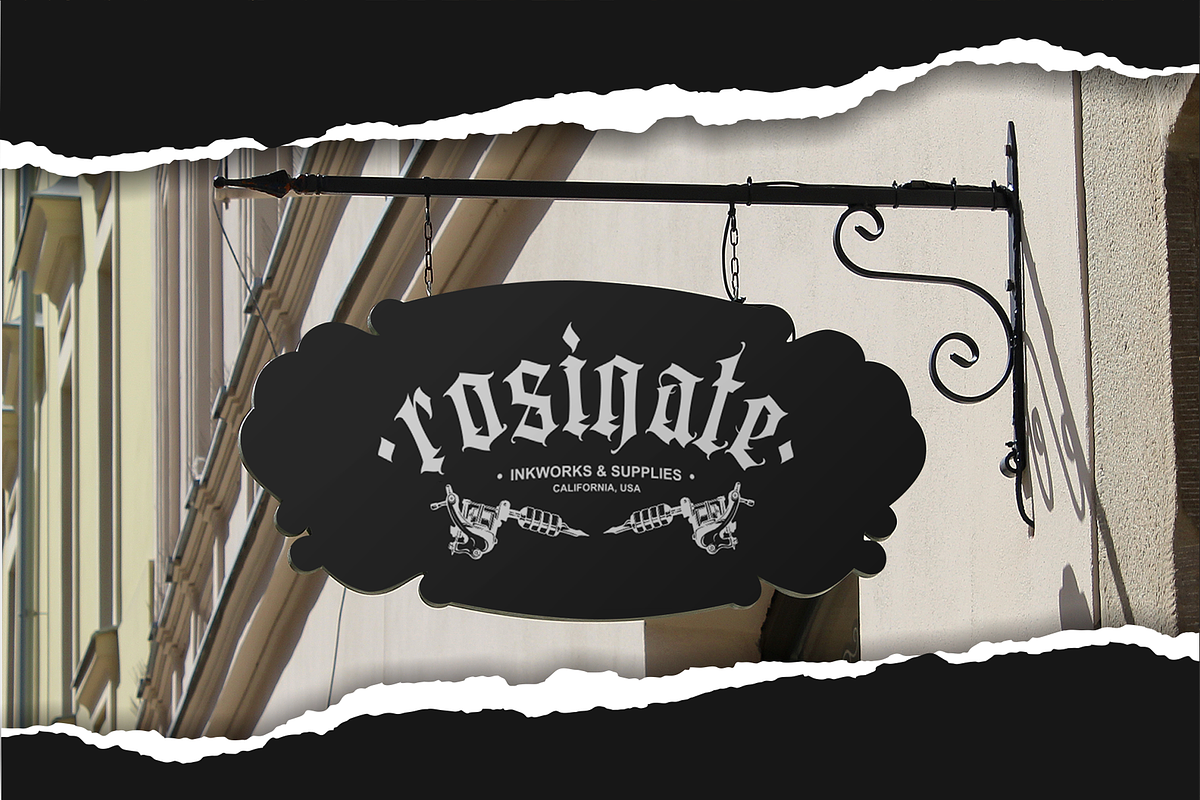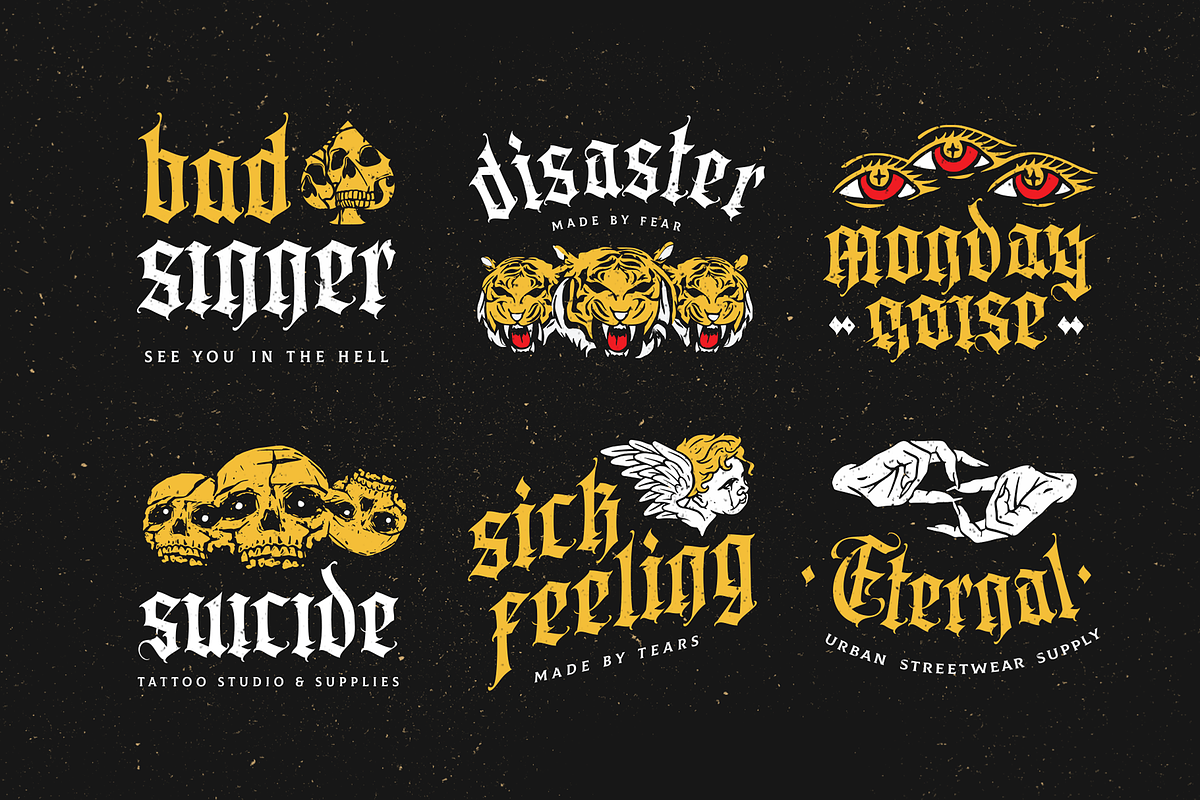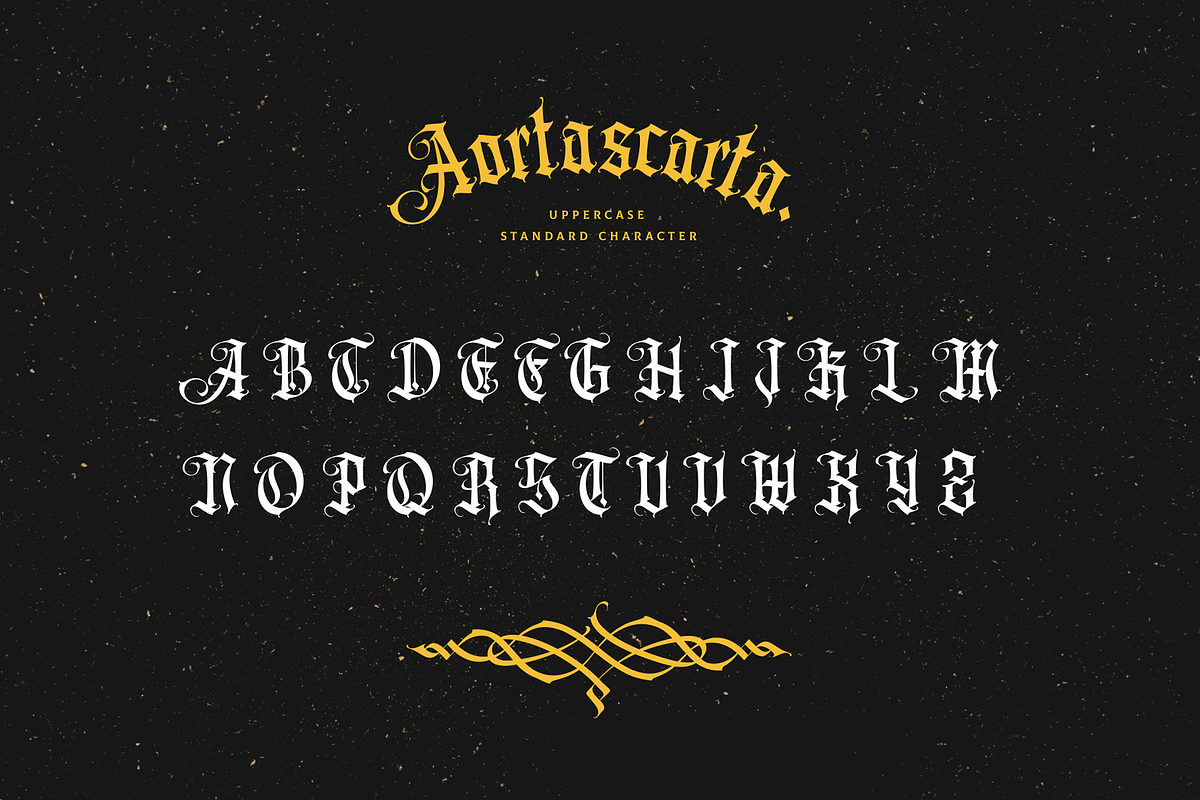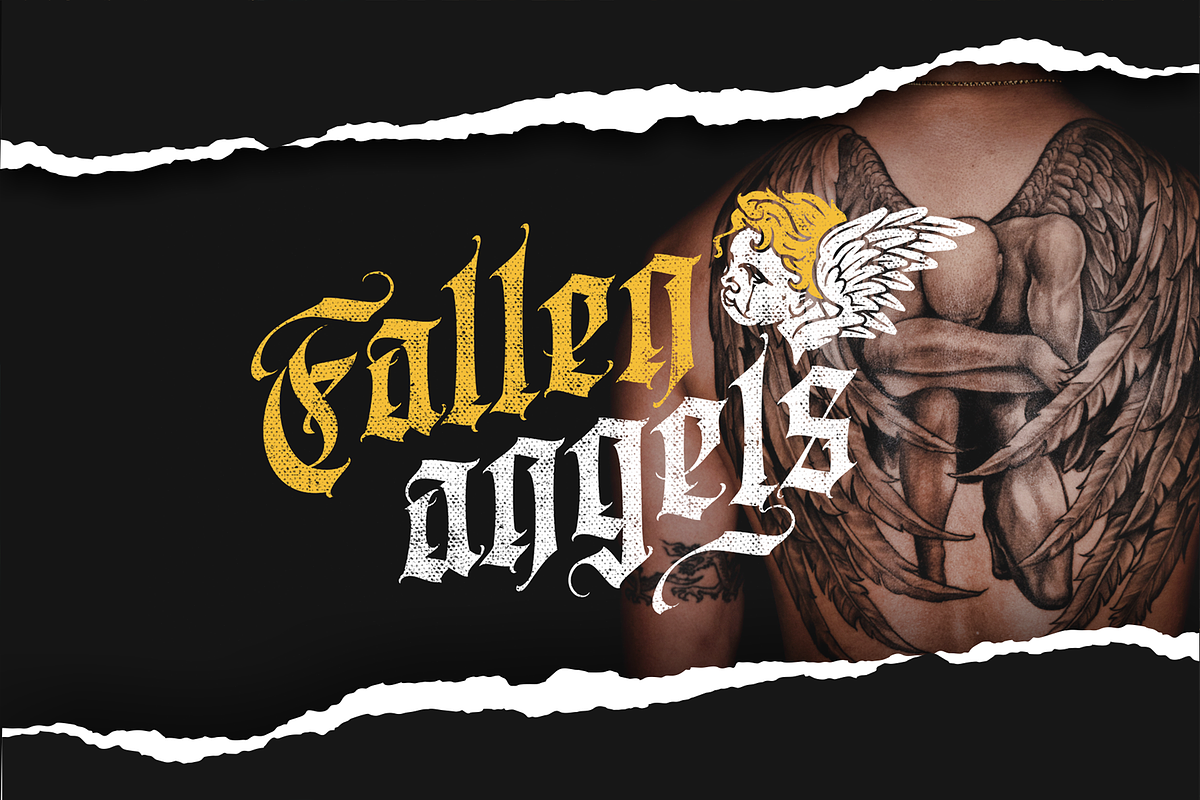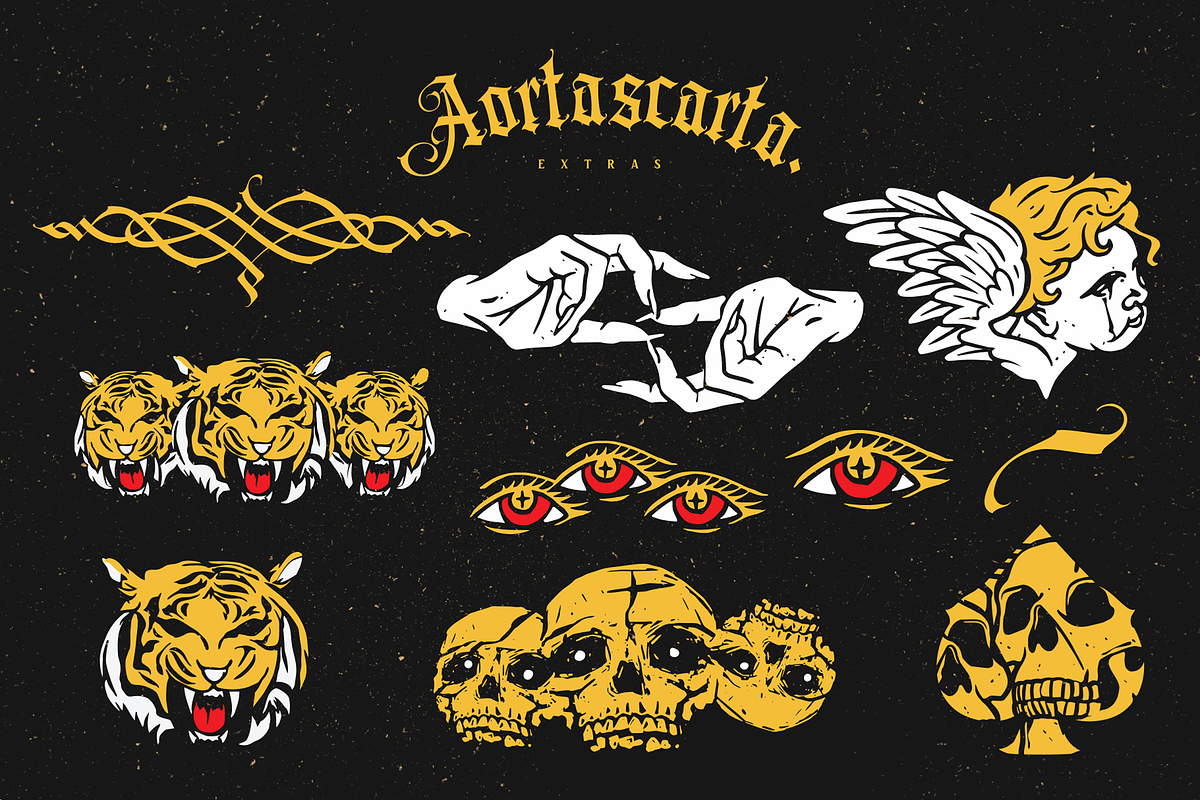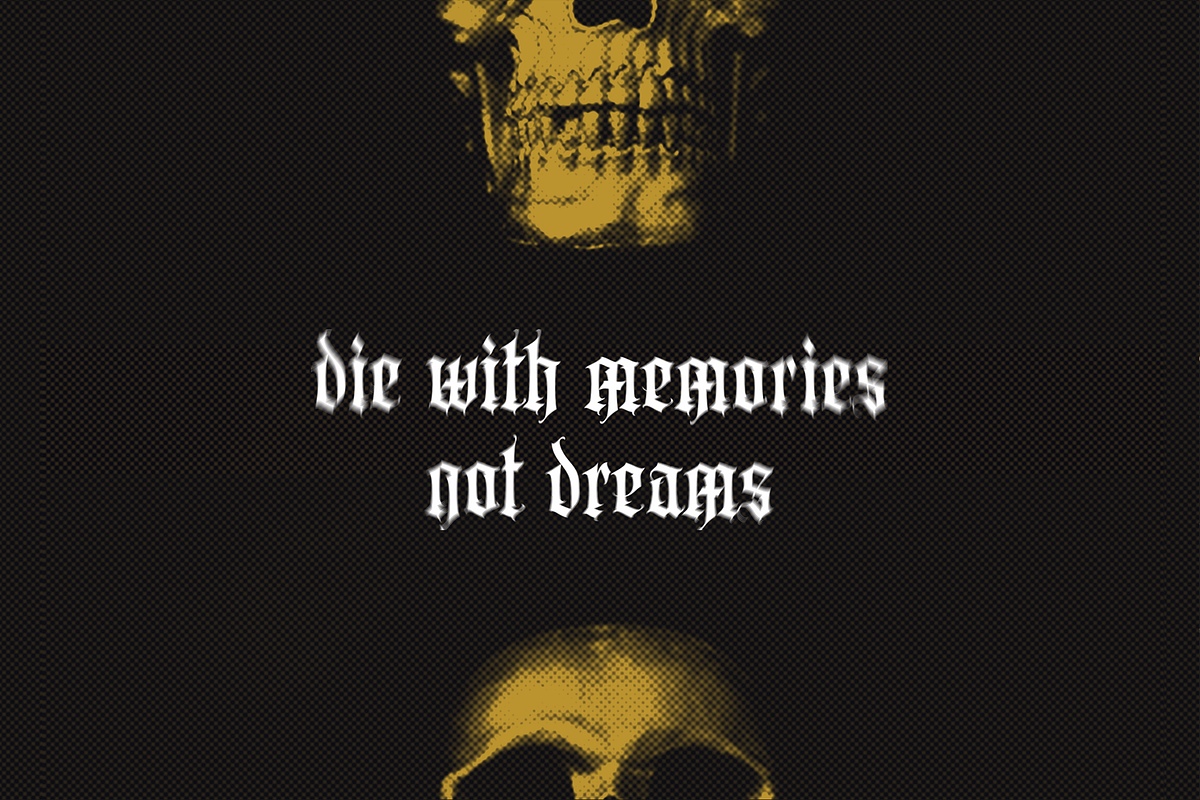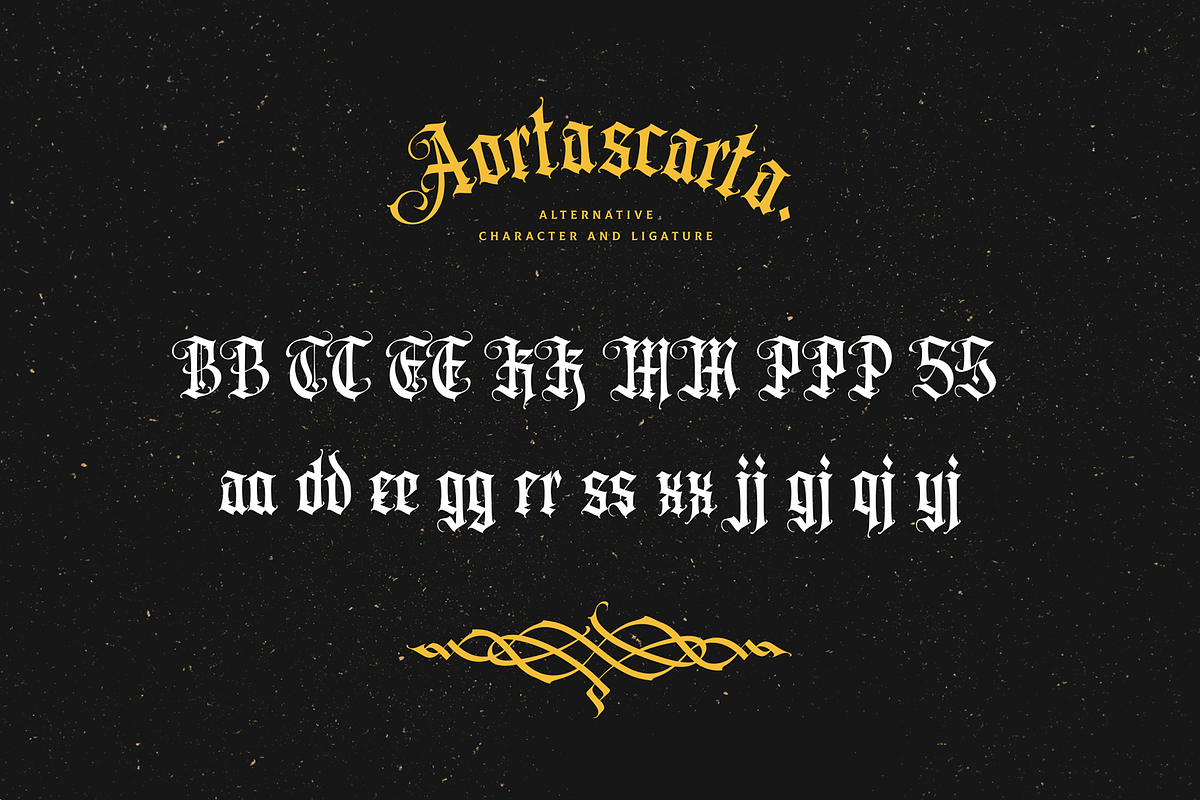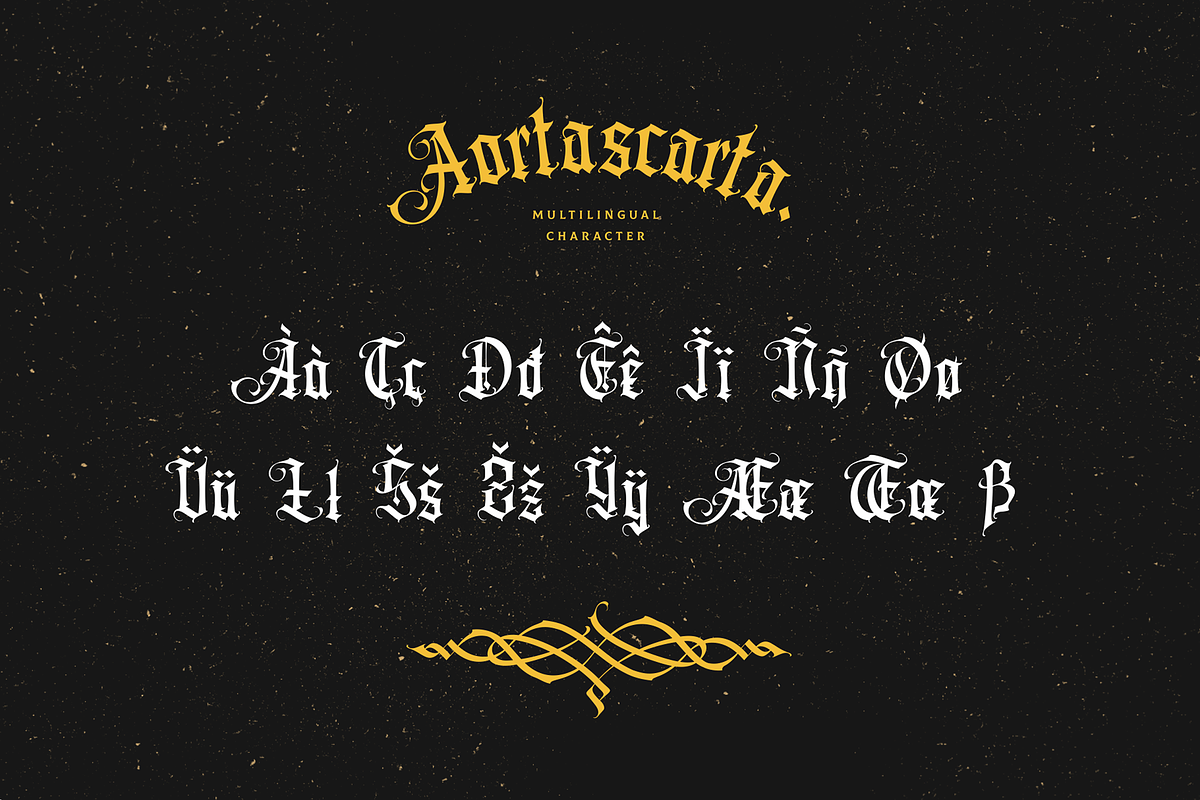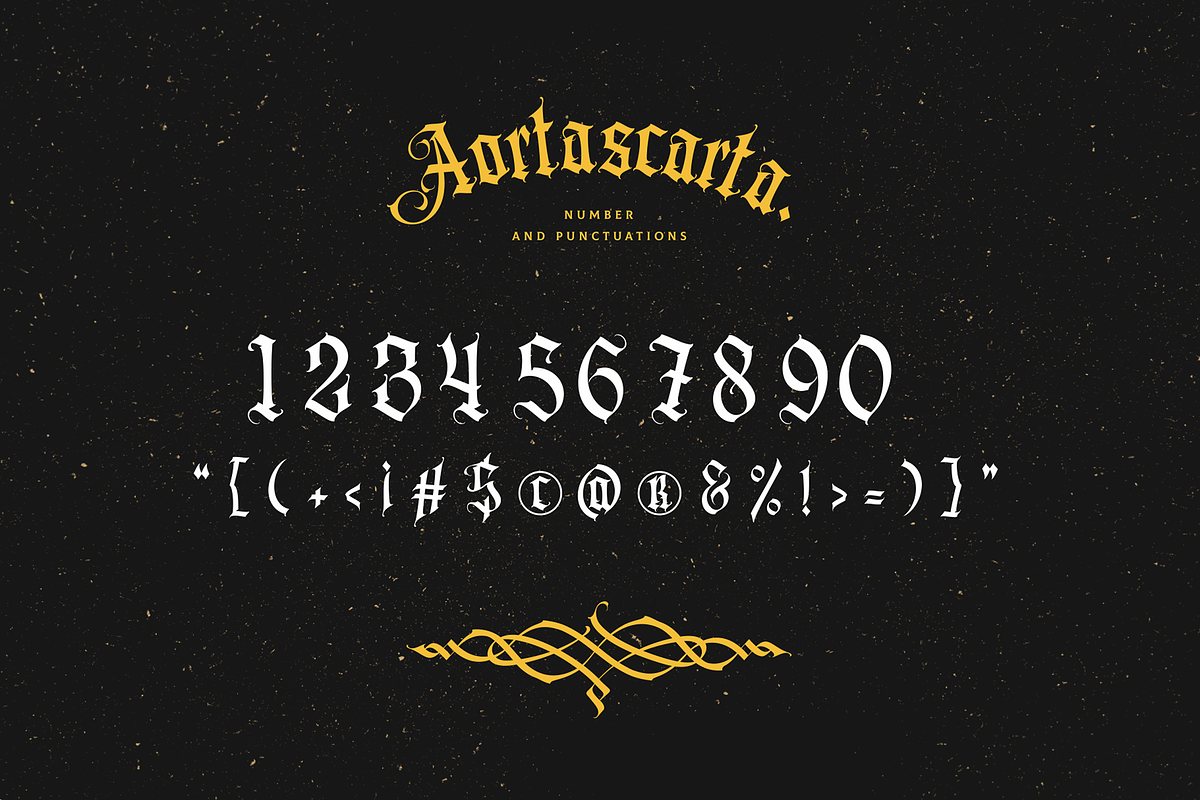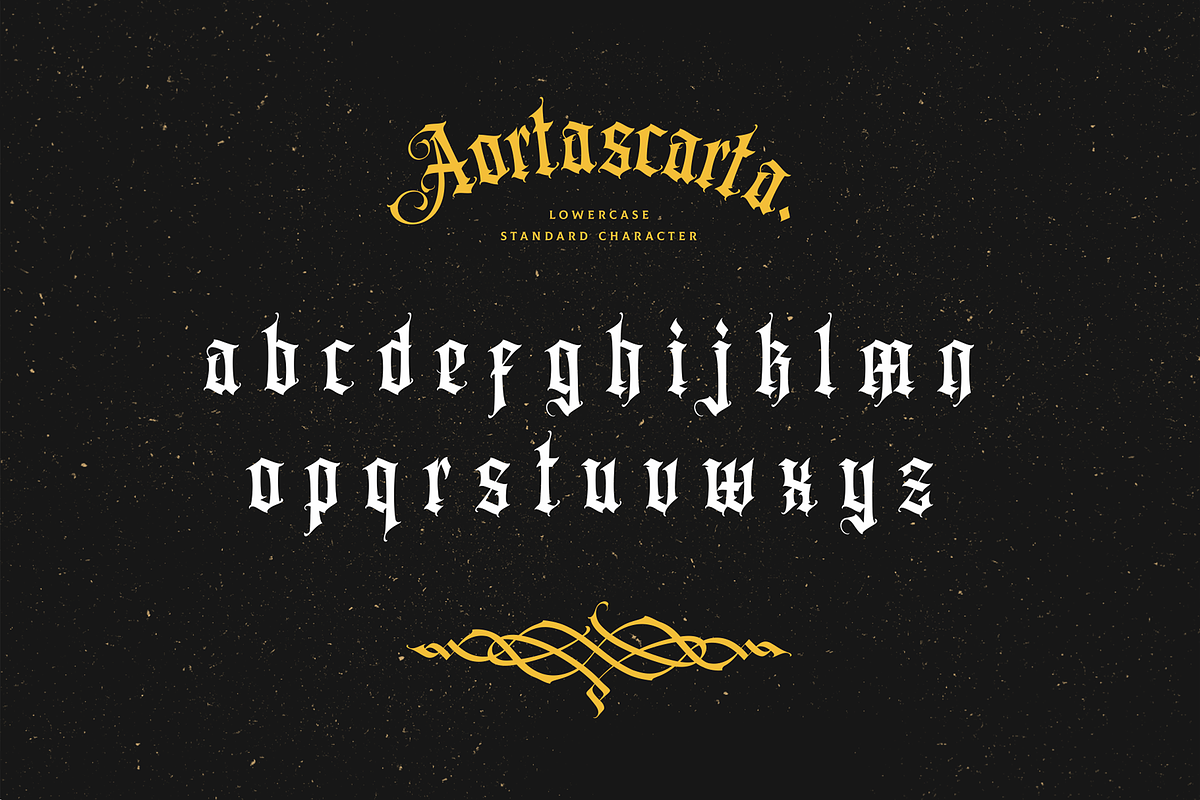
Aortascarta
AORTASCARTA is an Old Blackletter style font with a slight decorative touch. Like the previous blackletter fonts, it is always very suitable for making logos, especially tattoo logos, tattoo lettering, tattoo designs, certificates, and more.
It is suitable for supporting designs so that your designs are more dark, gothic and vintage.